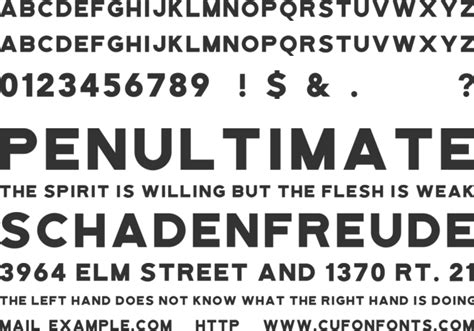
Bourbon Grotesque Font. Web bourbon grotesque is a sans serif display font with a rounded aesthetic. Web bourbon grotesque is a sans serif display font with a rounded aesthetic.
Bourbon Grotesque Font
It comes in regular and inline styles and includes multilingual uppercase characters, numbers and punctuation. It comes in regular and inline styles and includes multilingual uppercase characters, numbers and punctuation. Web bourbon grotesque font was designed through jeremy vesey. Web bourbon grotesque is a sans serif display font with a rounded aesthetic. Web bourbon grotesque is a sans serif display font with a rounded aesthetic. It is available in regular and inline patterns and. This is a sans serif display font that is similar to andy font ciderhouse with a rounded aesthetic.
Web bourbon grotesque is a sans serif display font with a rounded aesthetic. This is a sans serif display font that is similar to andy font ciderhouse with a rounded aesthetic. Web bourbon grotesque is a sans serif display font with a rounded aesthetic. It is available in regular and inline patterns and. Web bourbon grotesque is a sans serif display font with a rounded aesthetic. It comes in regular and inline styles and includes multilingual uppercase characters, numbers and punctuation. Web bourbon grotesque font was designed through jeremy vesey. It comes in regular and inline styles and includes multilingual uppercase characters, numbers and punctuation.